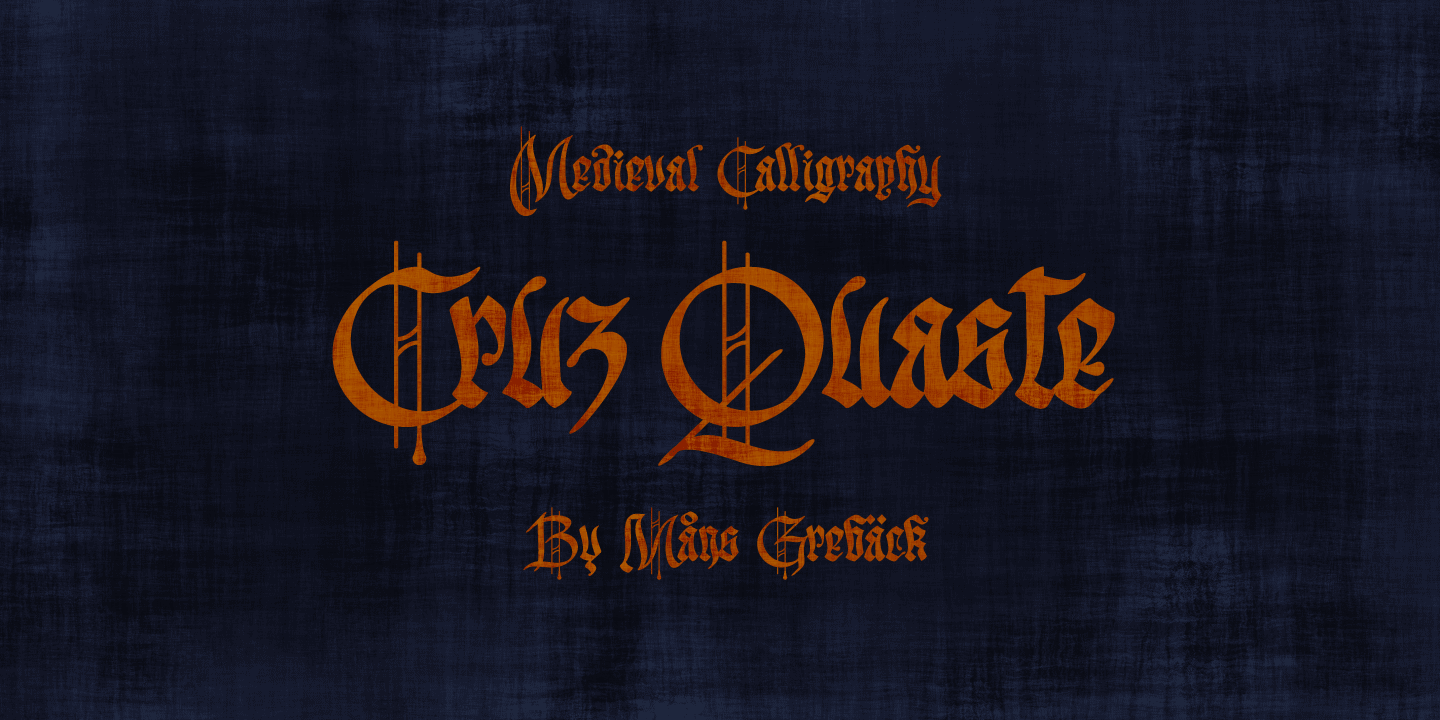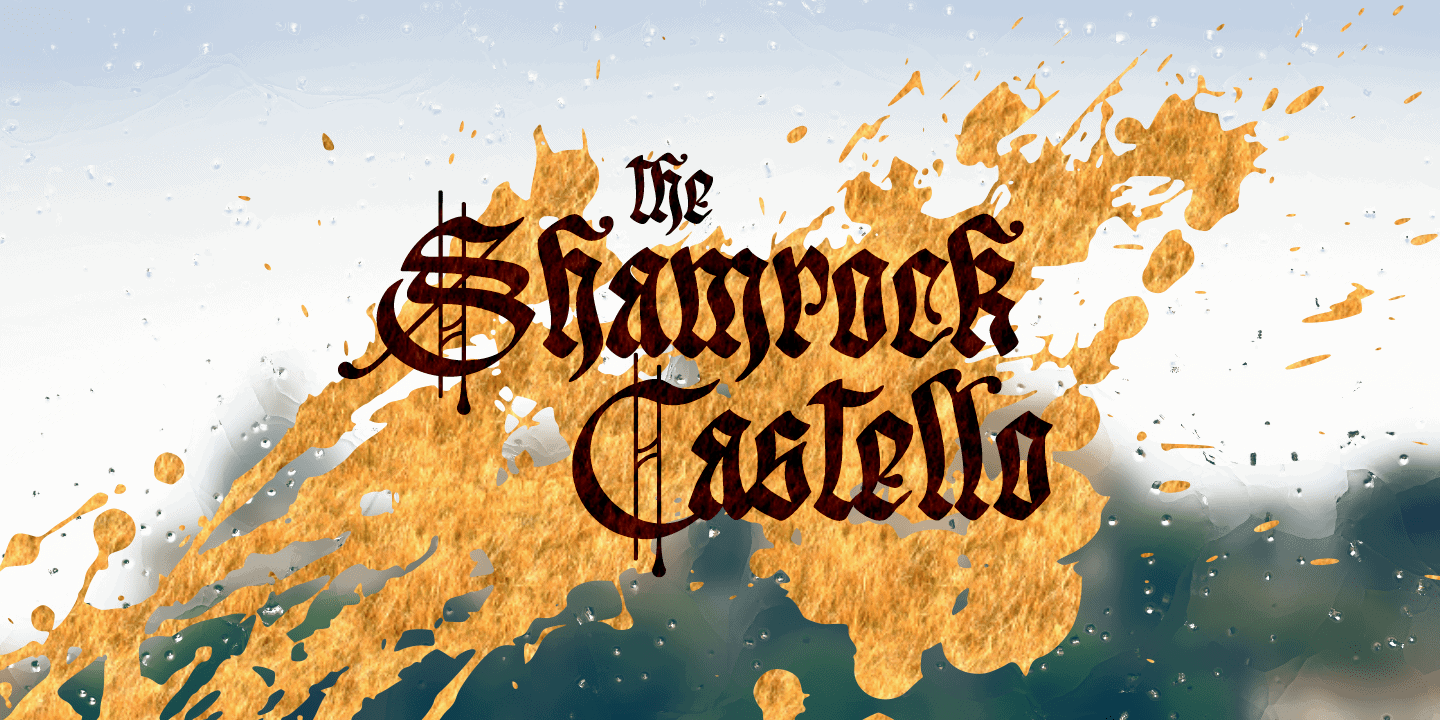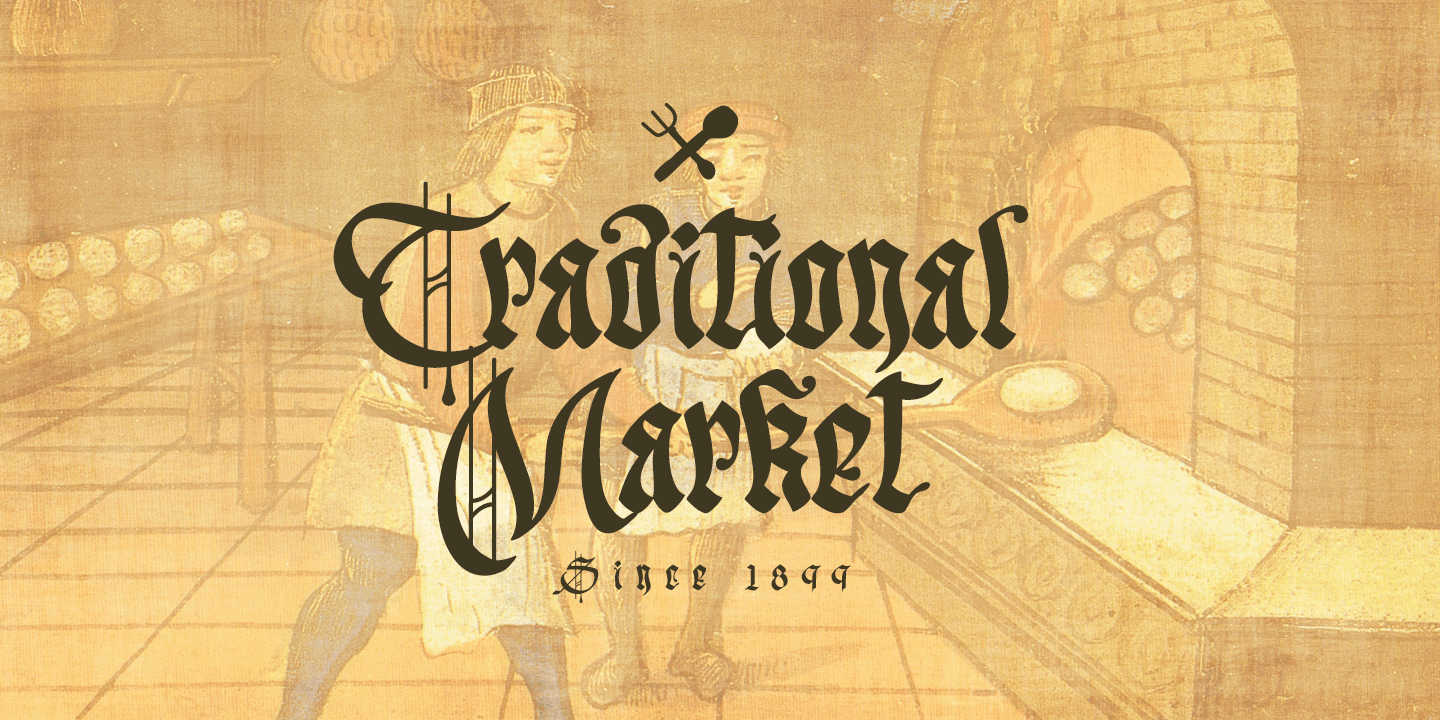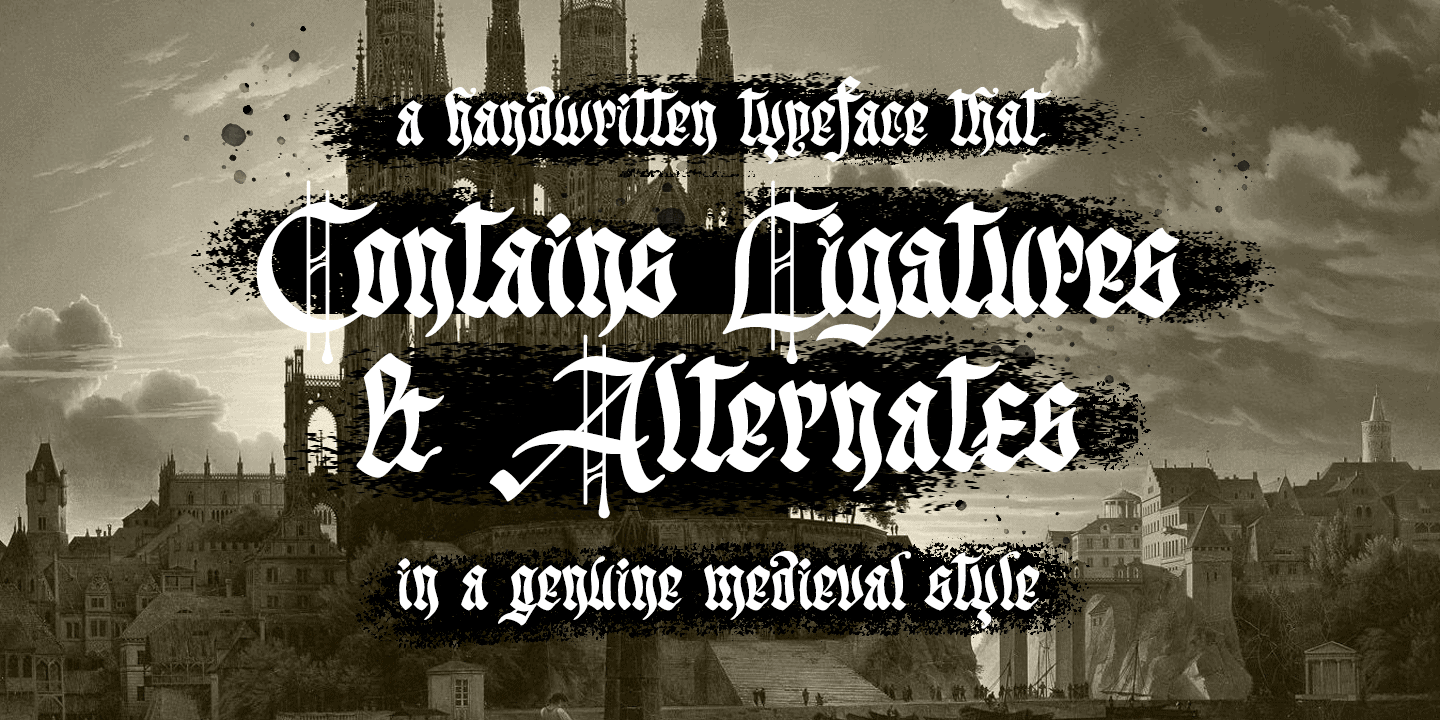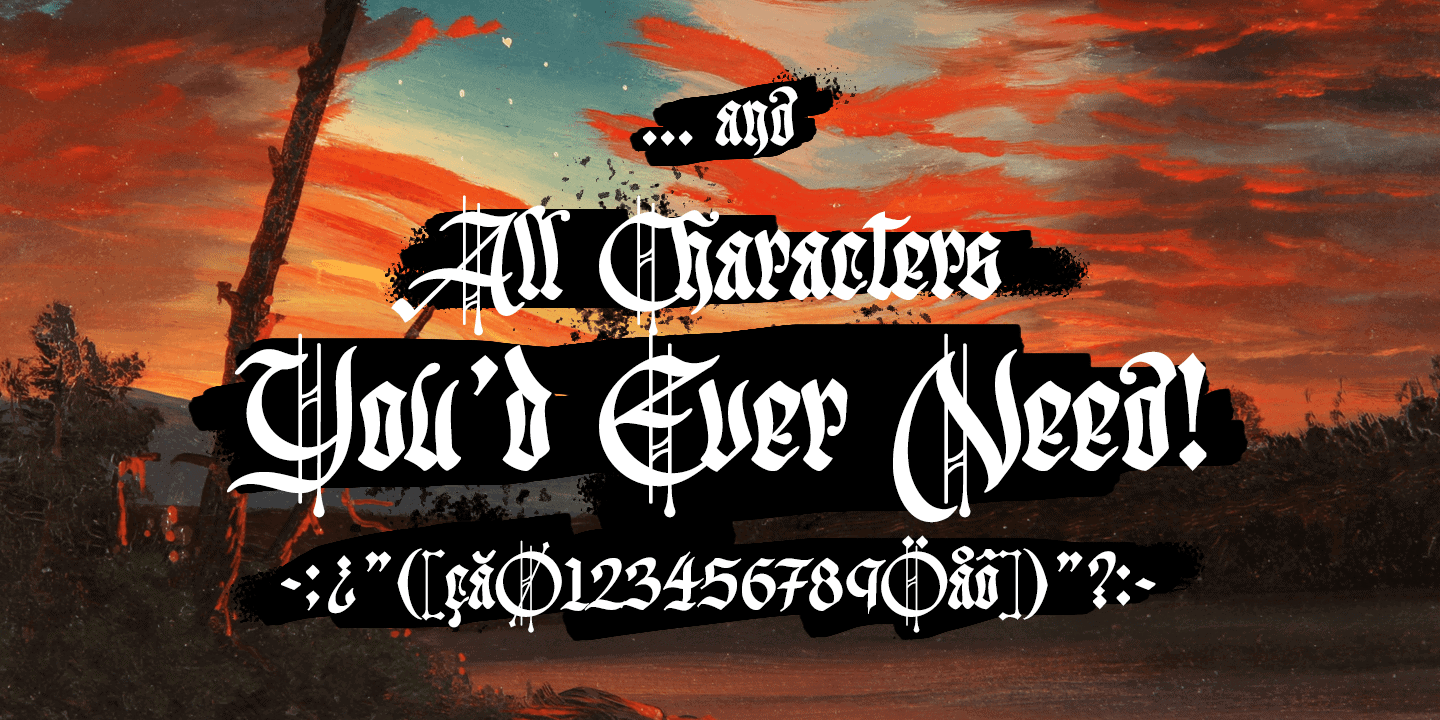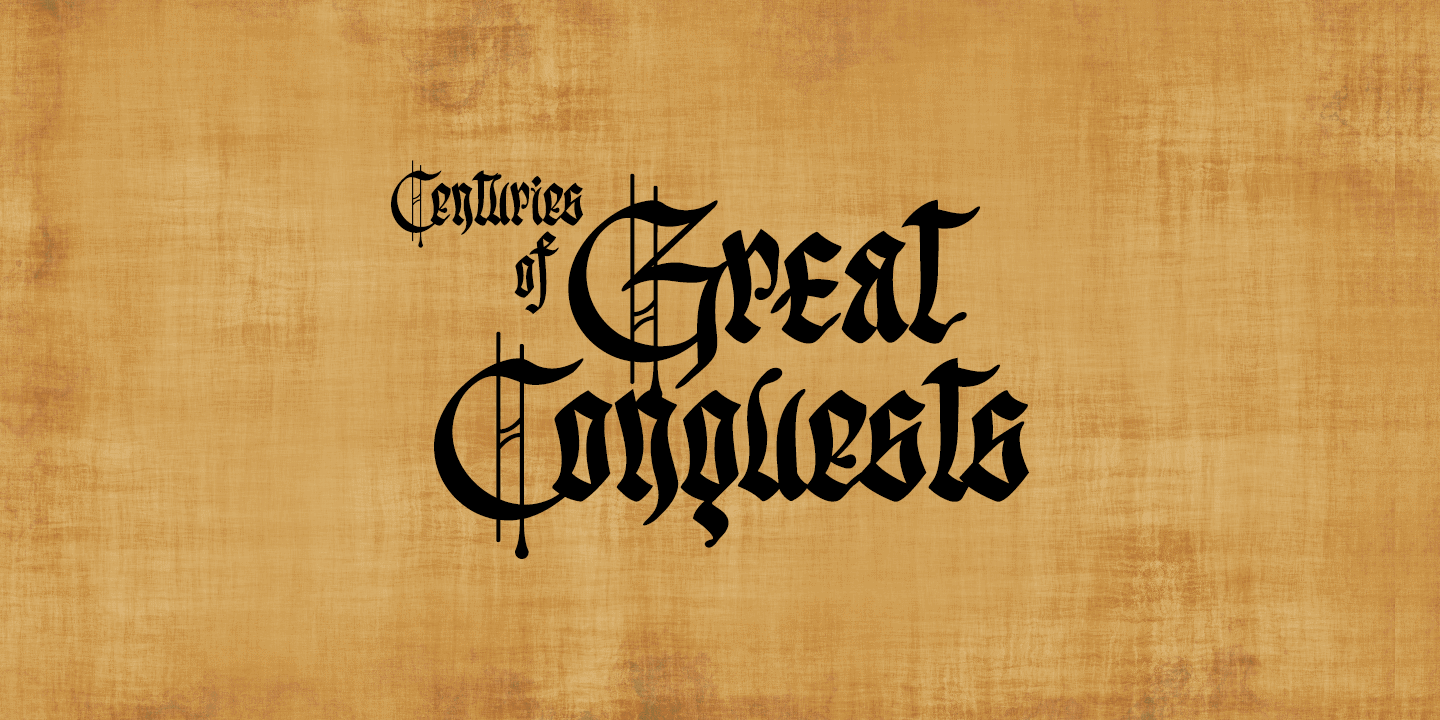
Cruz Quaste
Cruz Quaste is a calligraphic medieval type, drawn by Måns Grebäck between 2018-2020. While traditional in character it is yet original, and could be described as a reinvented Gothic style. Cruz Quaste contains OpenType features such as alternates and ligatures. The font is multilingual and supports all Latin-based European languages. It contains numbers, punctuation and all symbols you’ll ever need.